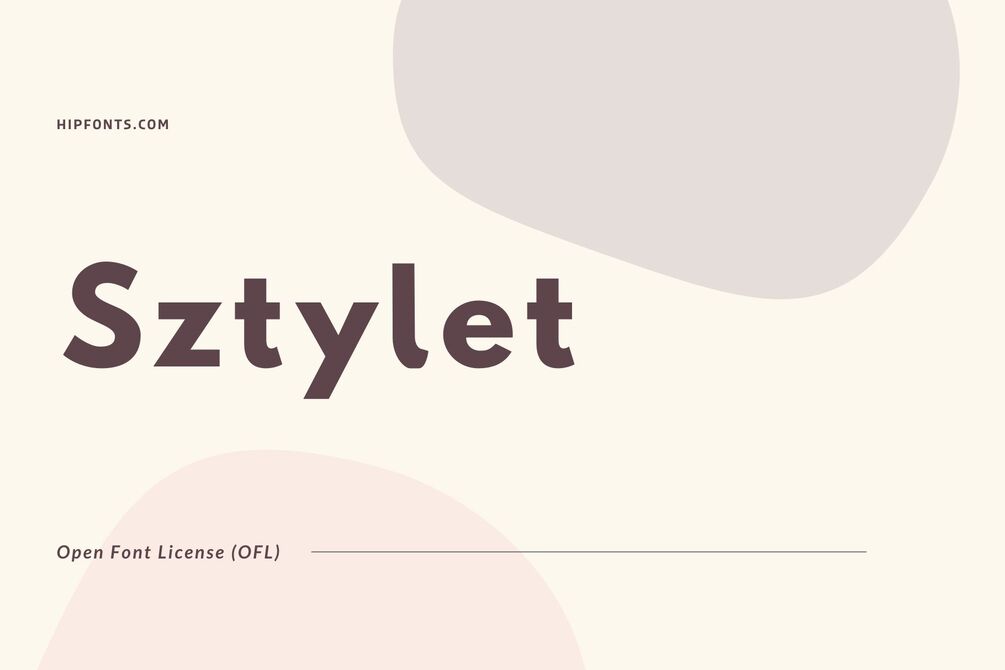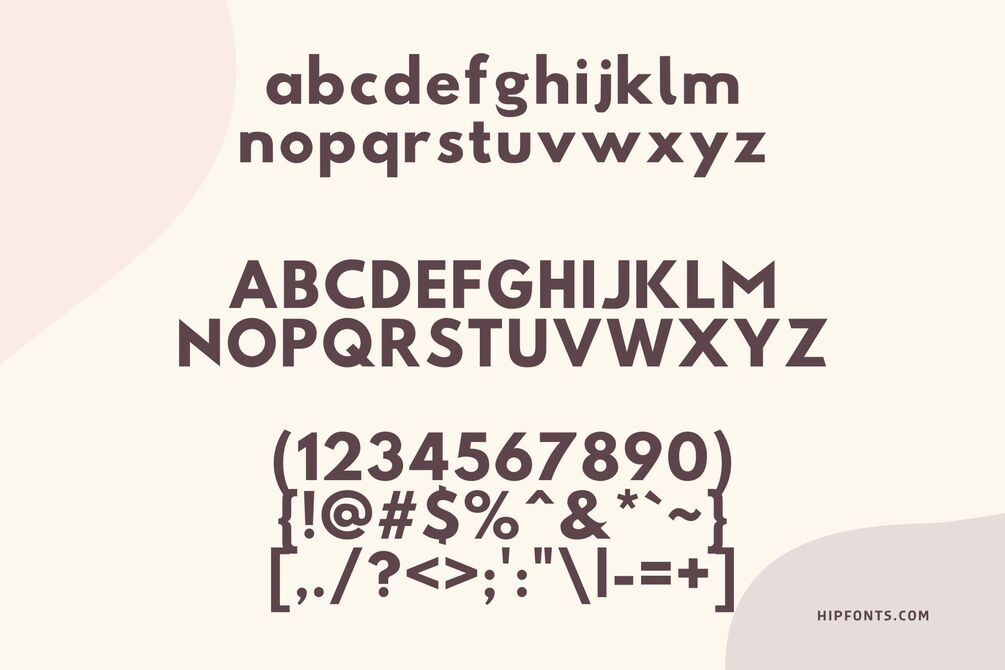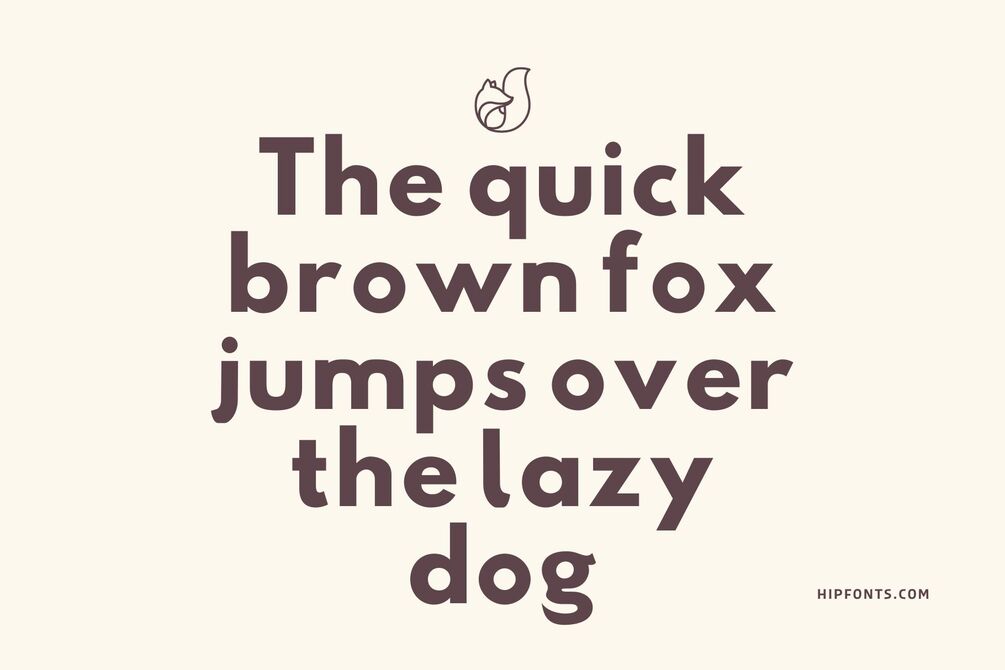
Sztylet
Sztylet is a bold and expressive font that commands attention with its unique and dynamic letterforms. Inspired by calligraphy and hand-drawn styles, Sztylet brings a touch of artistic flair to any design project. With its energetic strokes, varying line weights, and fluid forms, Sztylet stands out as a visually striking font that adds personality and individuality to typographic compositions.
Perfectly suited for headlines, logos, and branding, Sztylet captures the essence of creativity and artistic expression. Its dramatic curves and intricate details create a sense of movement and visual interest, making it a great choice for designs that aim to make a powerful visual statement.
Despite its expressive nature, Sztylet maintains good legibility, ensuring that the message is effectively conveyed. The careful balance of thick and thin strokes, along with well-crafted letterforms, ensures clarity even in large display sizes. Sztylet's versatility allows it to shine in both print and digital applications, giving designers the freedom to experiment and create captivating typographic compositions.